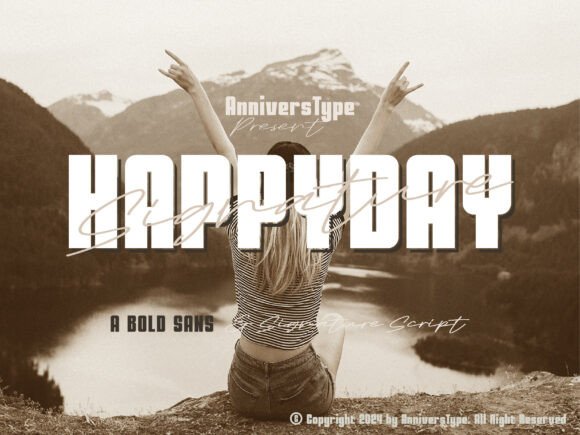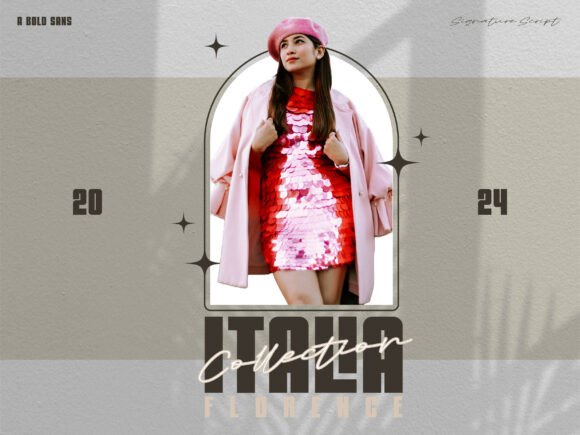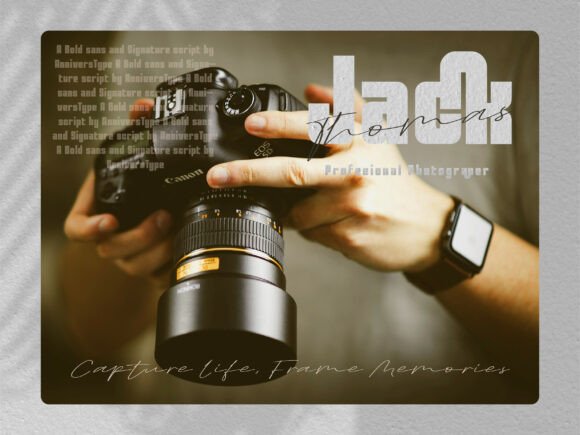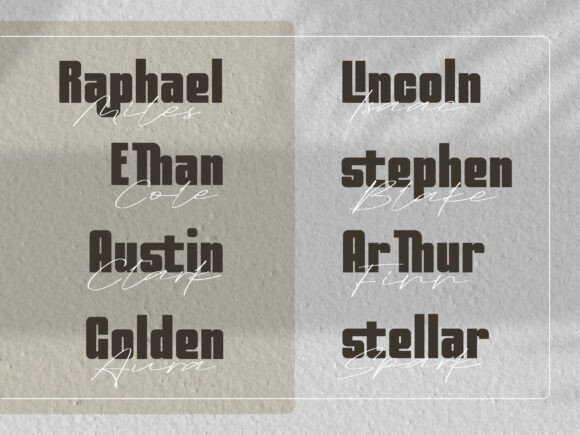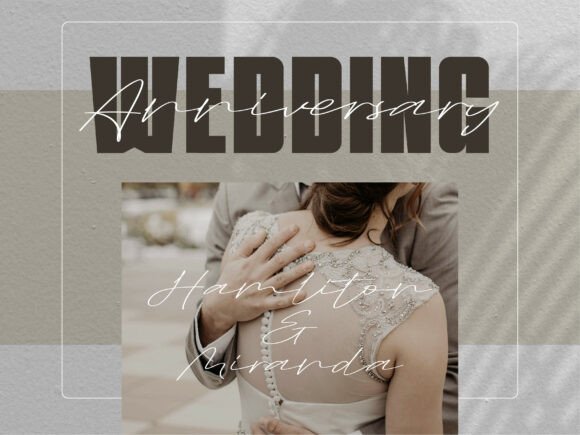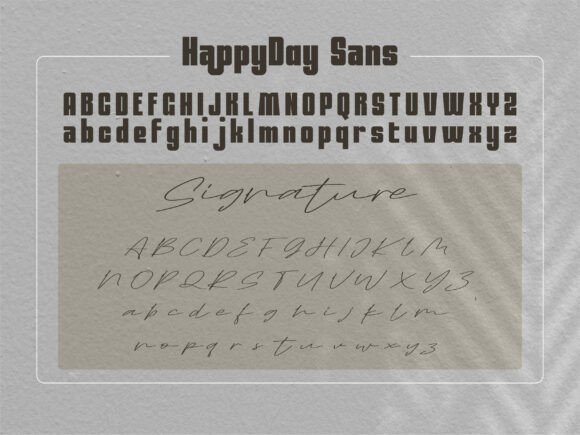
Introduction to Happyday Duo Font
Happyday Script & Sans is a versatile font pairing that combines a bold sans serif with a signature-style script, This combination not only enhances visual appeal but also provides an engaging contrast between clean, modern elements and more organic, artistic ones.
Key Features of Happyday Duo Font
Why Choose Happyday Duo Font?
Happyday Duo Font offers exceptional quality and versatility, making it a valuable addition to your design toolkit. Whether you’re creating for personal projects or commercial use, Happyday Duo Font delivers professional results.